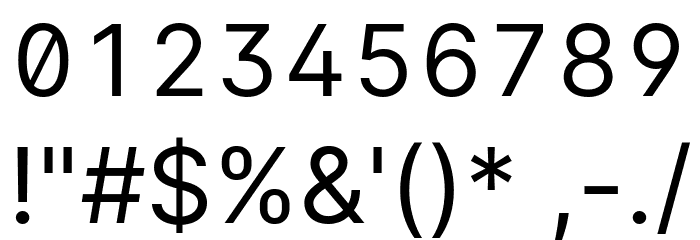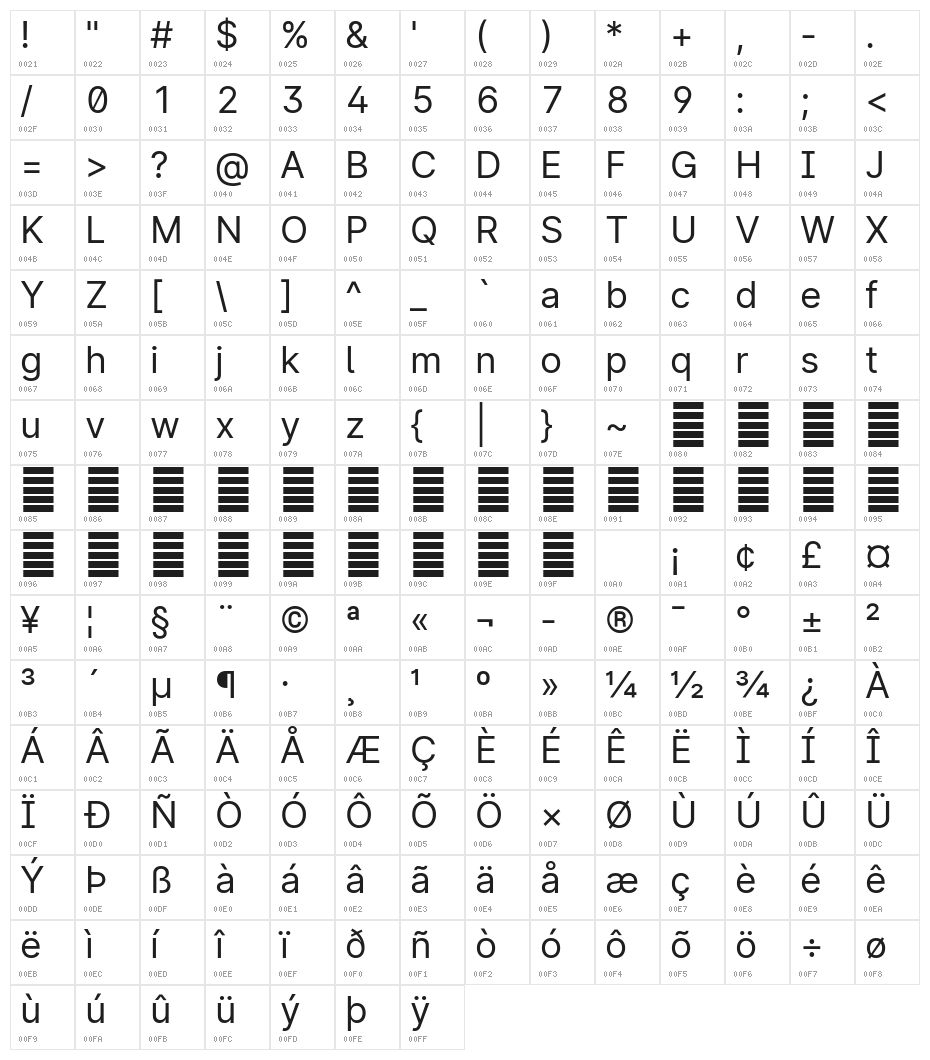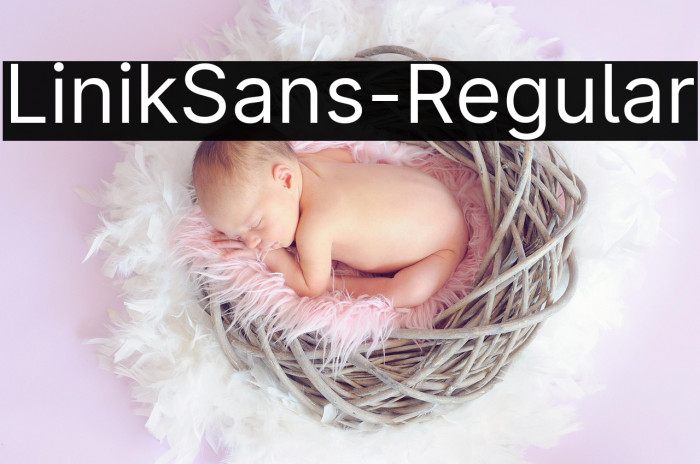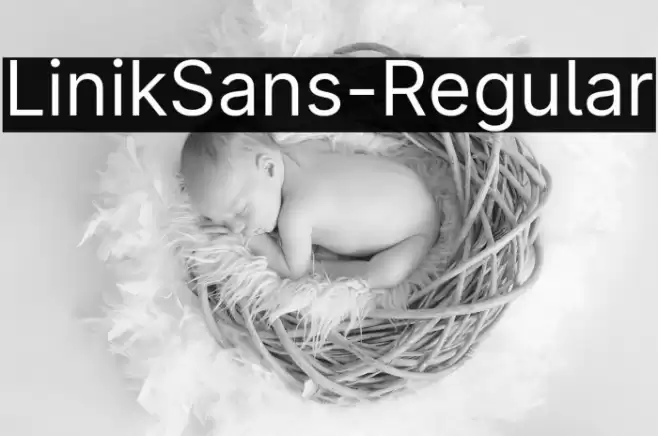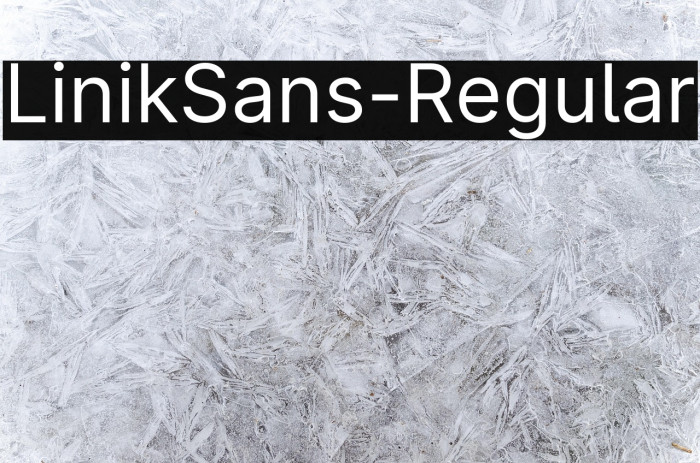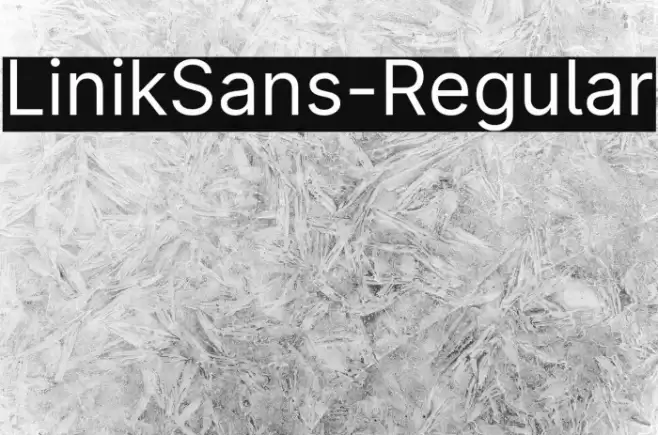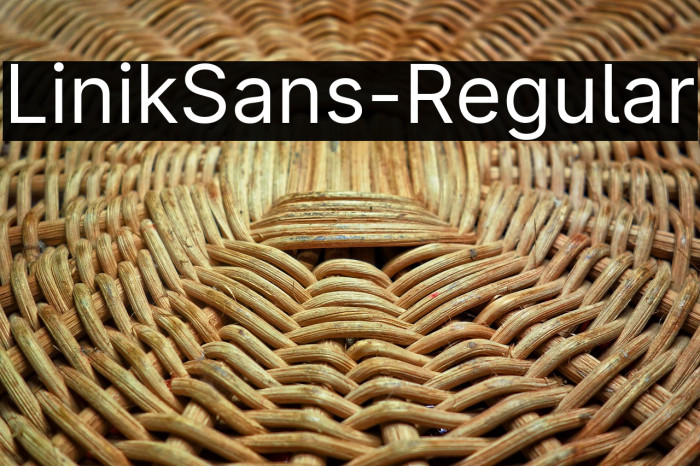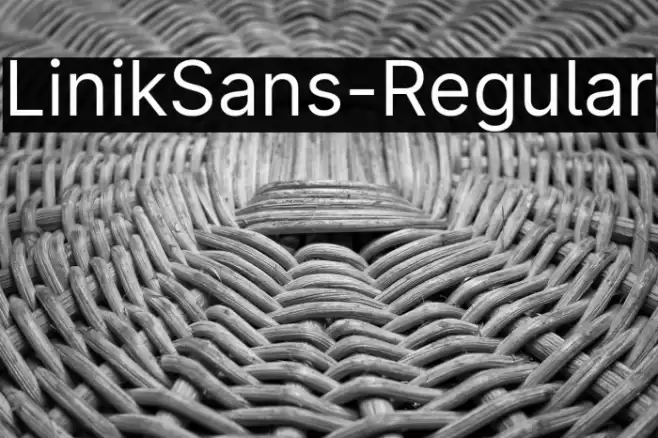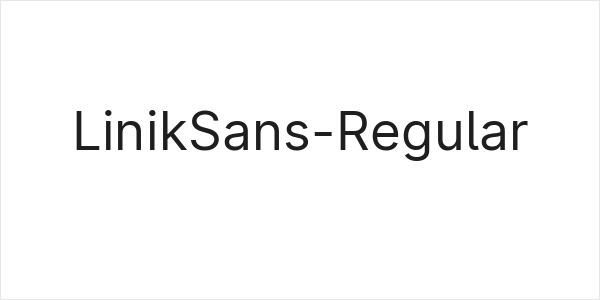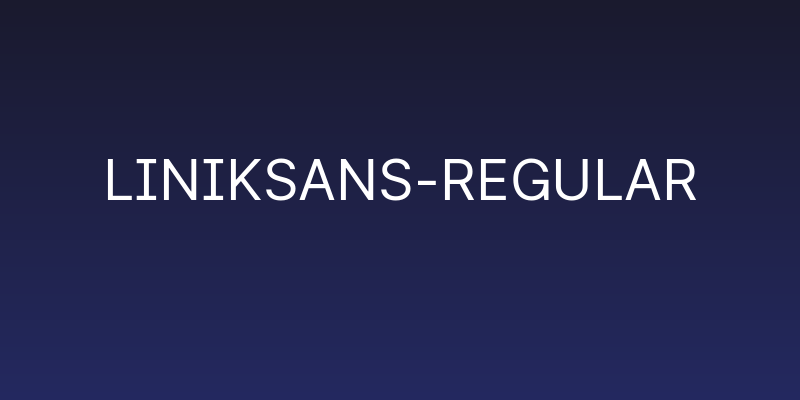
LinikSans-Regular Font
LinikSans-Regular Description
This font features a clean and modern sans-serif design, characterized by its simplicity and readability. The letters are evenly spaced with a consistent stroke width, giving it a balanced and harmonious appearance. The uppercase and lowercase letters are well-proportioned, making it versatile for various design applications. The numerals are clear and distinct, ensuring legibility in both print and digital formats. Special characters are included, maintaining the font's cohesive style. Its straightforward design makes it suitable for a wide range of uses, from professional documents to creative projects.
| Proposed Projects | Ideal for branding, web design, corporate materials, and user interfaces. |